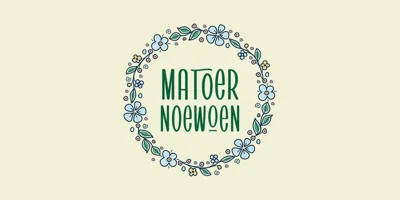
Pantura Font
The Pantura Font excels in various design applications including Indonesian cultural branding, traditional Javanese restaurant signage, Indonesian coastal tourism marketing, authentic gamelan music materials, Indonesian heritage center communications, traditional batik shop identities, Indonesian folk art promotions, cultural festival event signage, Indonesian diaspora community materials, and distinguished Southeast Asian projects that demand Indonesian elegance and cultural sophistication.
What makes the Pantura Font exciting is its authentic embodiment of Indonesian cultural heritage and northern Java coastal traditions through letterforms that capture the essence of Pantura regional identity and the rich artistic legacy of Indonesian civilization. This typeface demonstrates exceptional cultural depth through carefully crafted characters that suggest the flowing patterns of traditional Indonesian art, the rhythmic beauty of gamelan music, and the sophisticated craftsmanship that defines authentic Indonesian cultural expression. The font's cultural personality makes it perfect for Indonesian organizations and Southeast Asian cultural institutions seeking to communicate regional authenticity, artistic heritage, and the kind of sophisticated Indonesian identity that honors centuries of coastal civilization through typography that literally resonates with Pantura cultural pride.
The Pantura Font family typically includes cultural weight variations that enhance the Indonesian aesthetic, featuring traditional styling options and extended character sets supporting Indonesian linguistic requirements and cultural applications. These family options often include Indonesian alternates, regional symbols, and traditional decorative elements that provide designers with comprehensive tools for creating authentically Indonesian typography that celebrates Pantura heritage while maintaining contemporary design appeal and cultural sensitivity.
Cultural professionals and Indonesian heritage organizations consistently select Pantura Font for projects requiring typography that communicates Indonesian authenticity and regional sophistication. This typeface delivers exceptional performance in cultural marketing, Indonesian branding, and heritage communications where establishing cultural credibility and demonstrating respect for Indonesian artistic traditions is essential for community connection. The font's regional character makes it particularly effective for music and cultural festival applications. Download Pantura Font today to access this culturally rich typeface that transforms Indonesian communications with its regional elegance and cultural sophistication, creating compelling heritage experiences that honor the magnificent artistic traditions of Indonesian Pantura culture while celebrating the sophisticated coastal identity that defines authentic Indonesian regional expression.